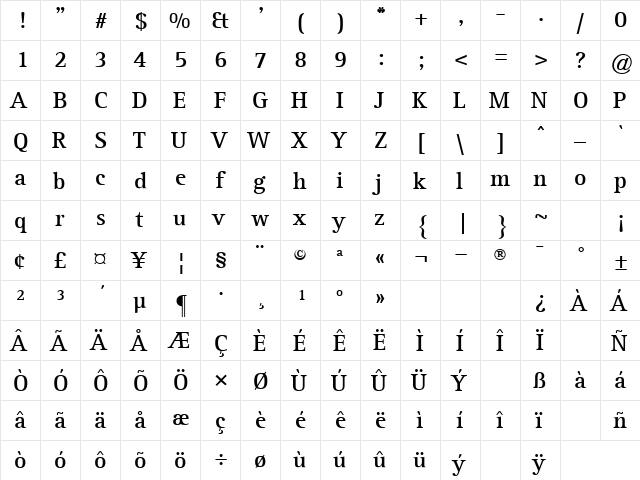
Sabot Bold Font Preview
Sabot Bold
Design Context for Sabot Typeface
Sabot offers clean, dependable letterforms without strong stylistic allegiance, making it a practical choice for designers who need flexibility. The heavy weight commands attention and anchors typographic hierarchies.
Pro Tip: Pair Sabot with a font of contrasting weight or personality to build a more expressive typographic hierarchy.